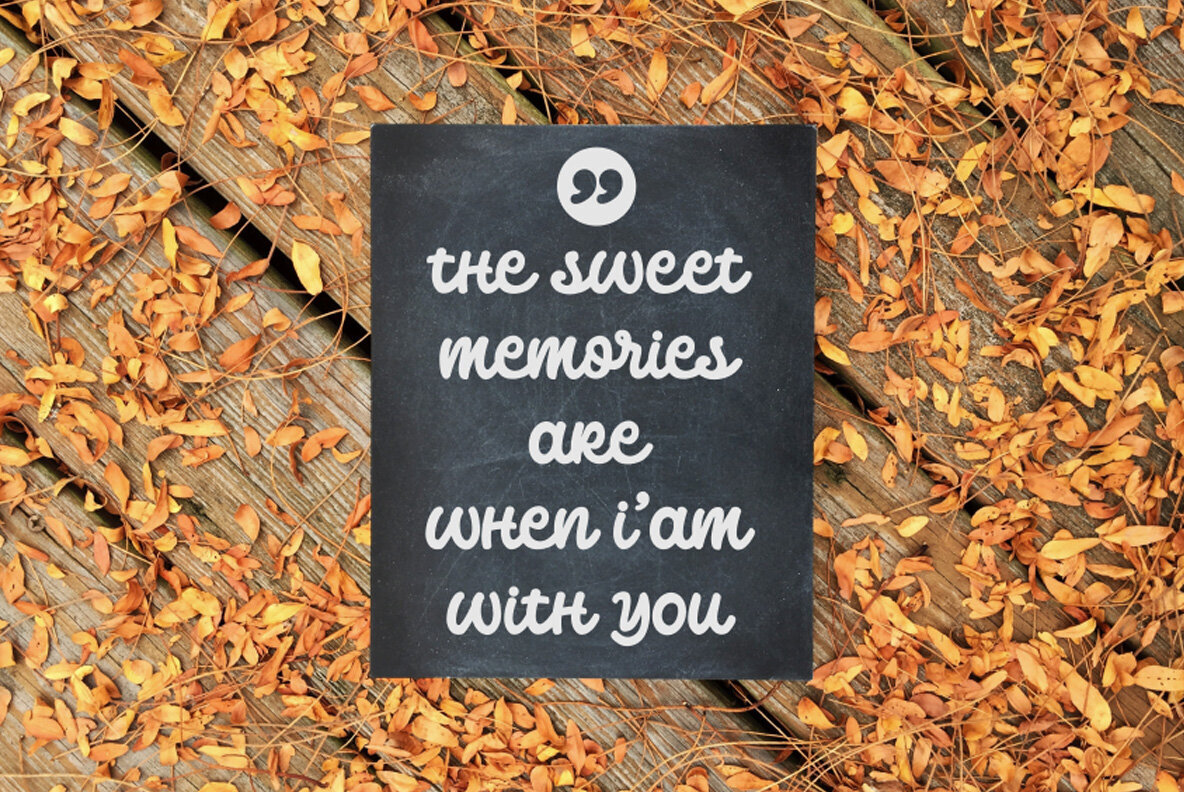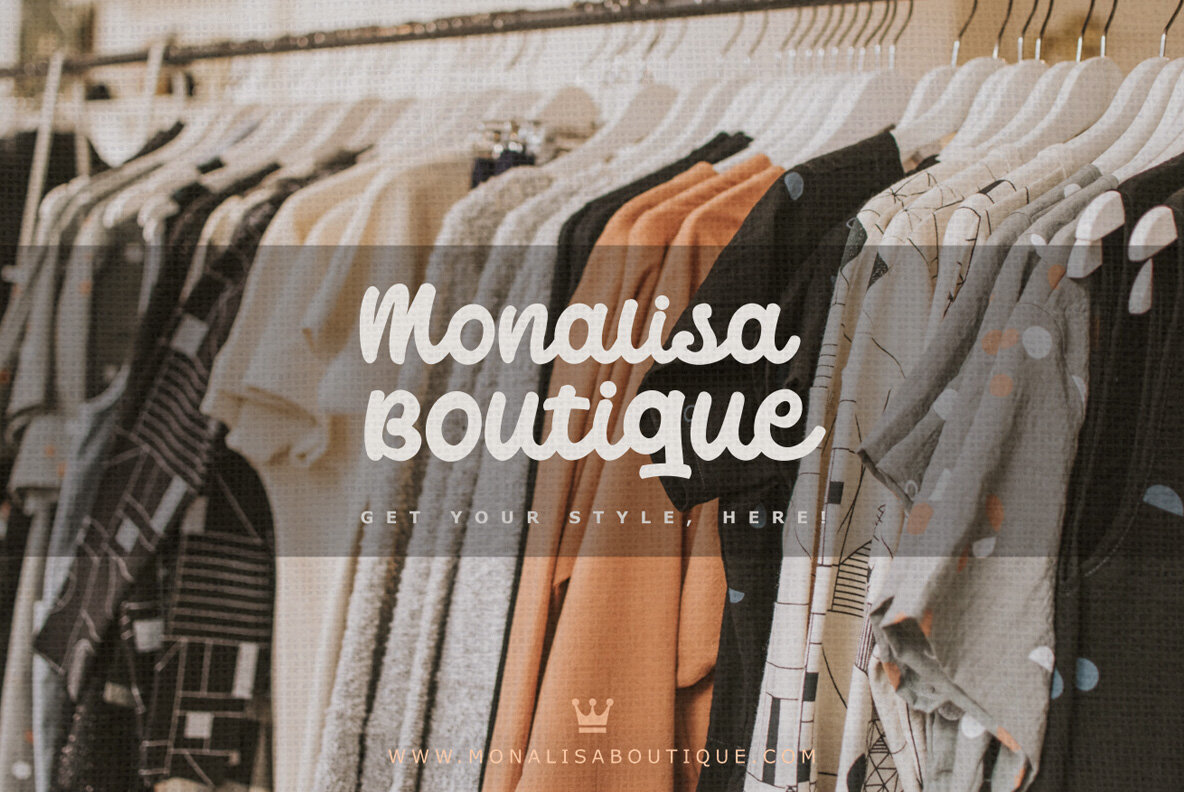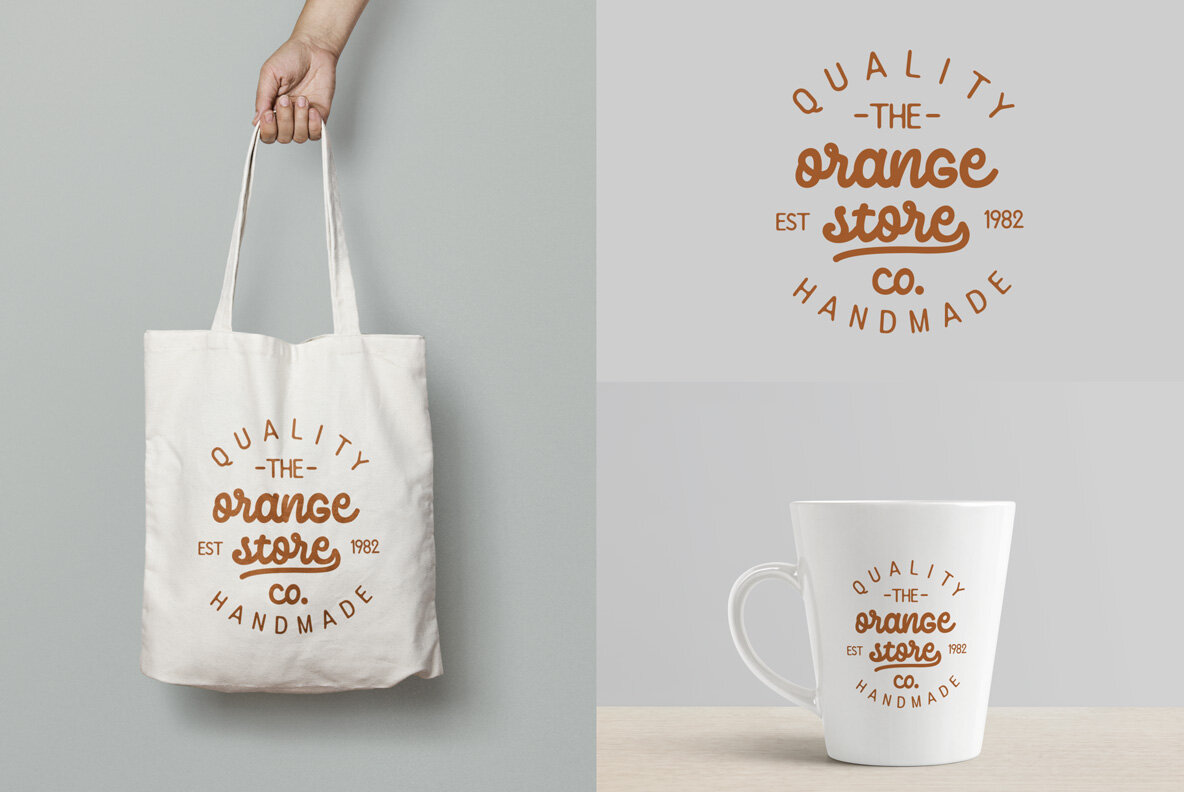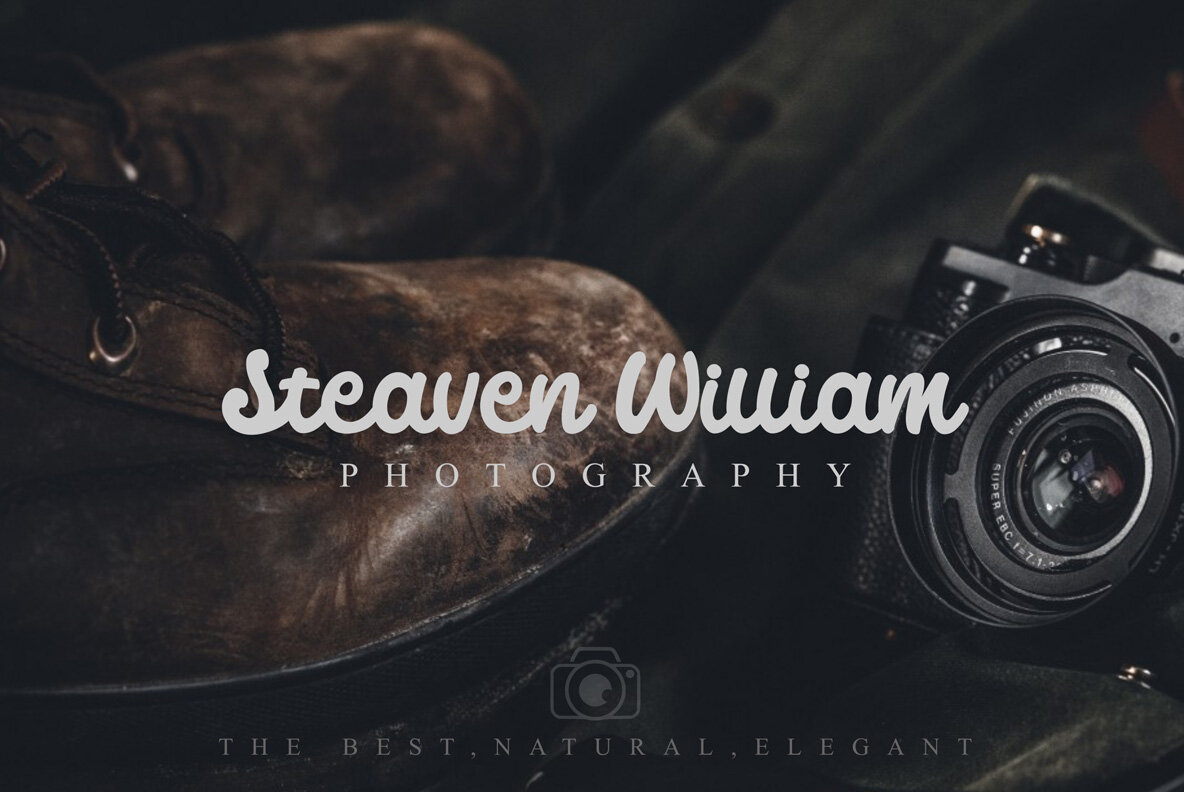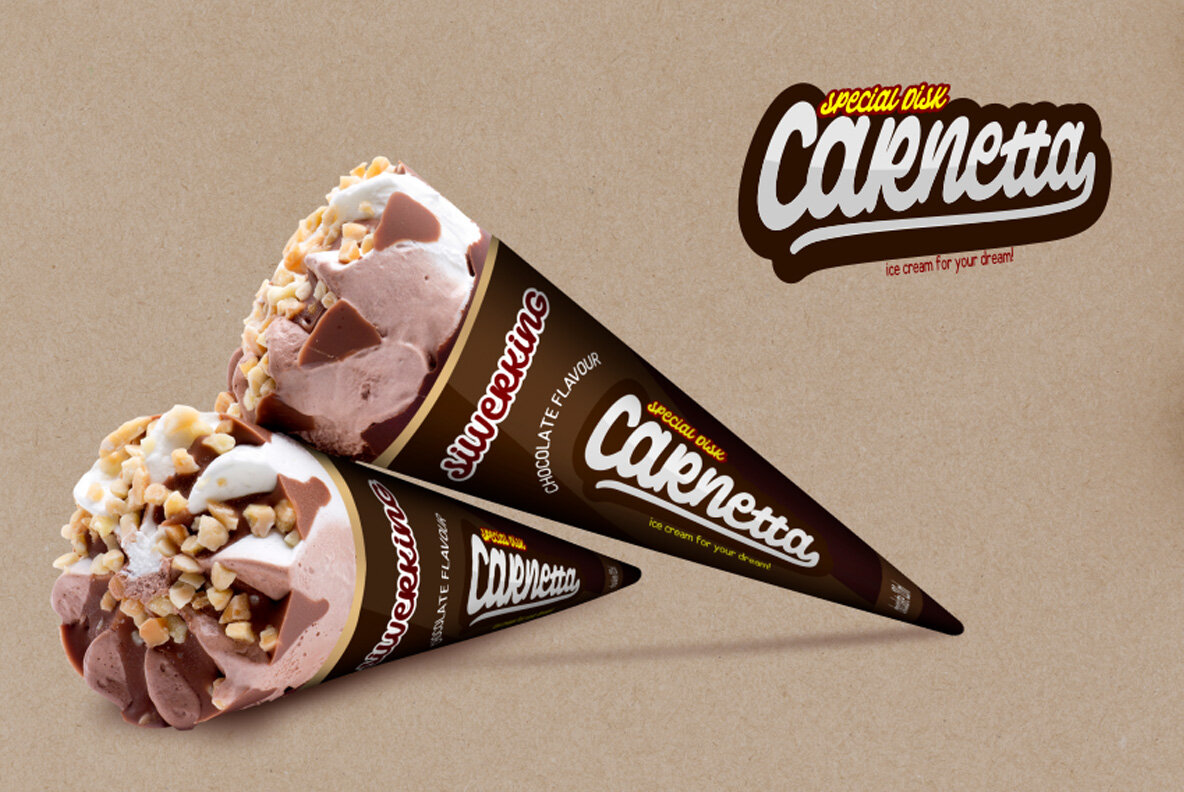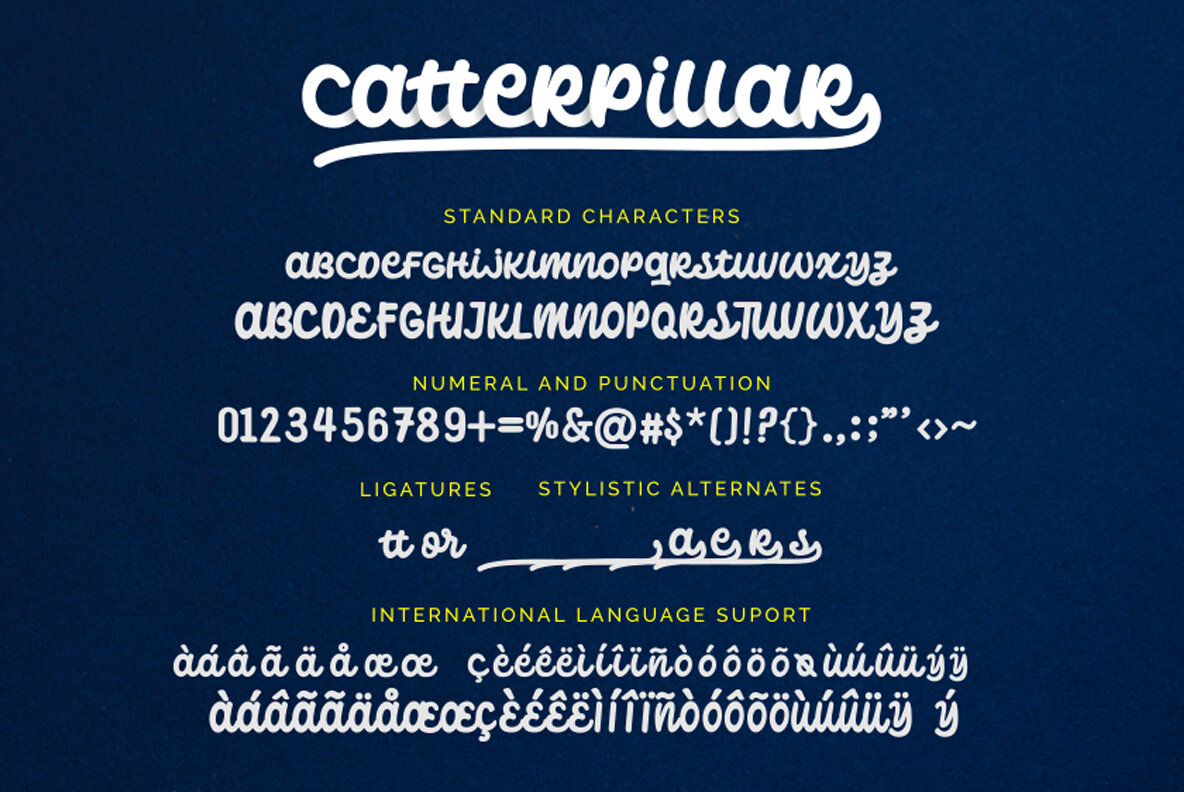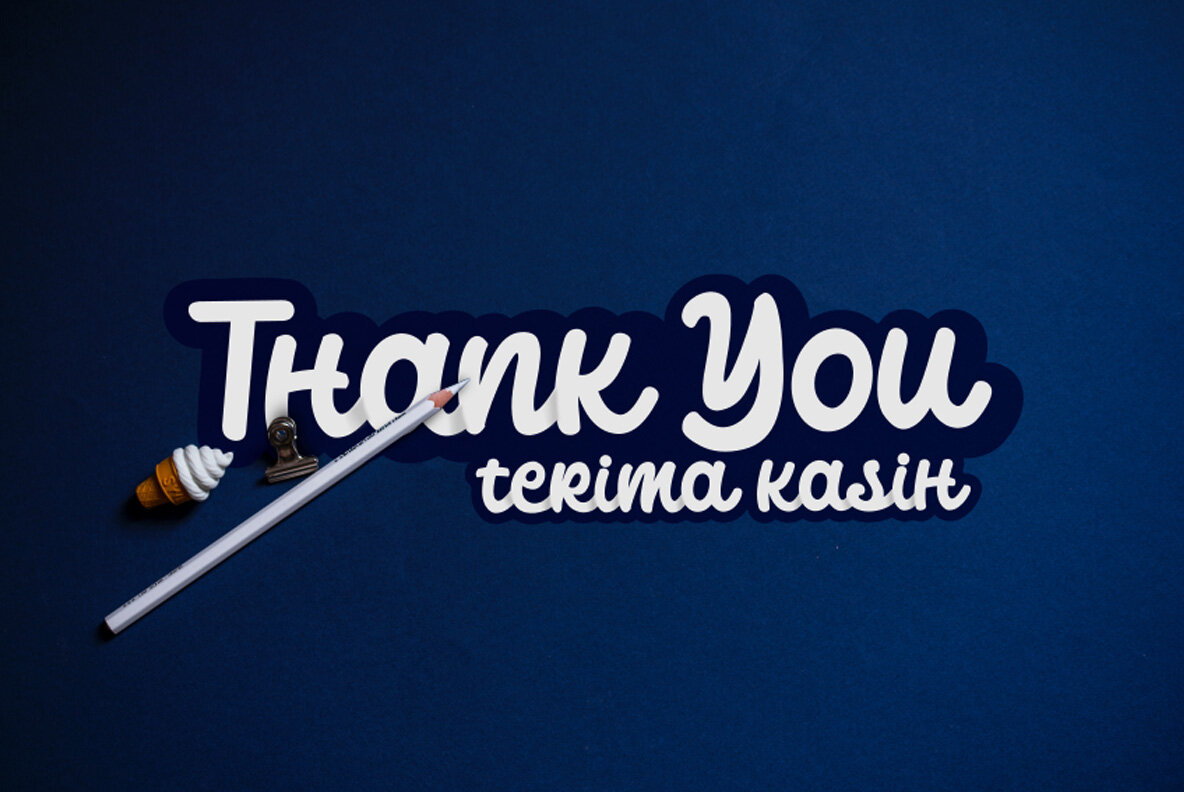
Catterpillar Font
Catterpillar Regular
The Catterpilar font is an excellent choice for various design projects, including web, print, logotype, posters, badges, signage, product packaging, brand identity, t-shirt designs, and more. With nearly 215 glyphs, this stylish font offers several OpenType features such as stylistic alternates, standard ligatures, and multilingual support. These features can be used to create unique and custom typography for your designs. Catterpilar font is PUA encoded, ensuring easy access to all glyphs and swashes. What's included: - Standard glyphs - Multilingual support - Web font - Compatible with PC & Mac - Simple installation - Symbols and numbers